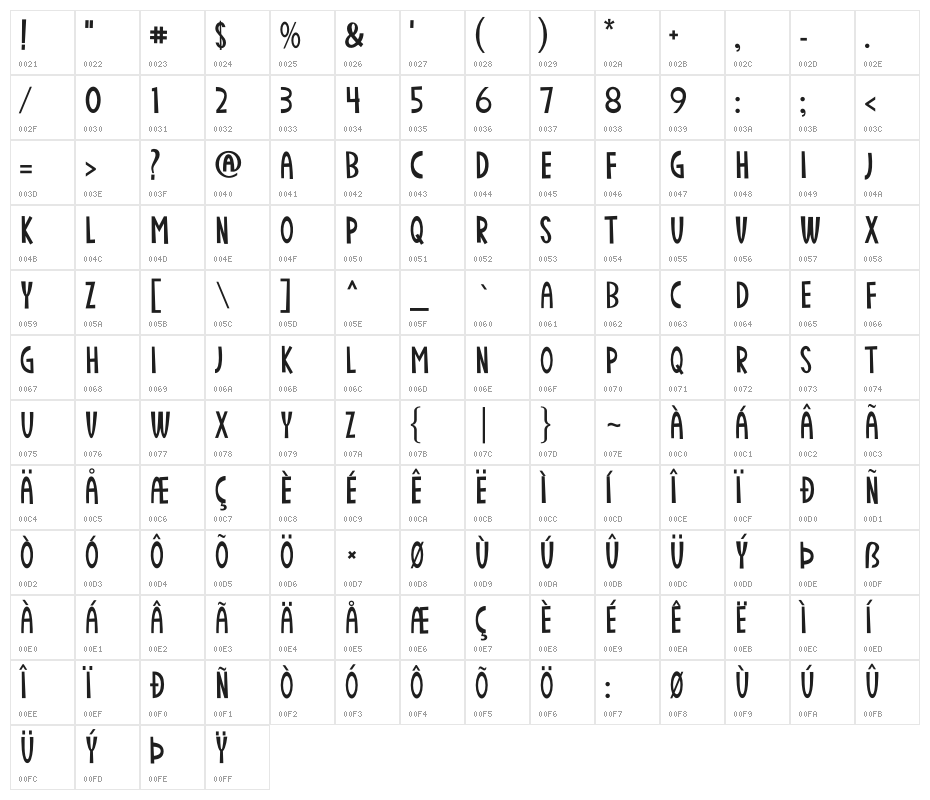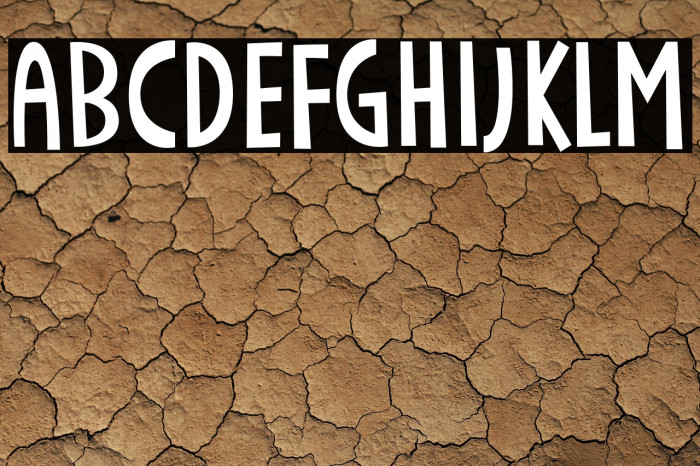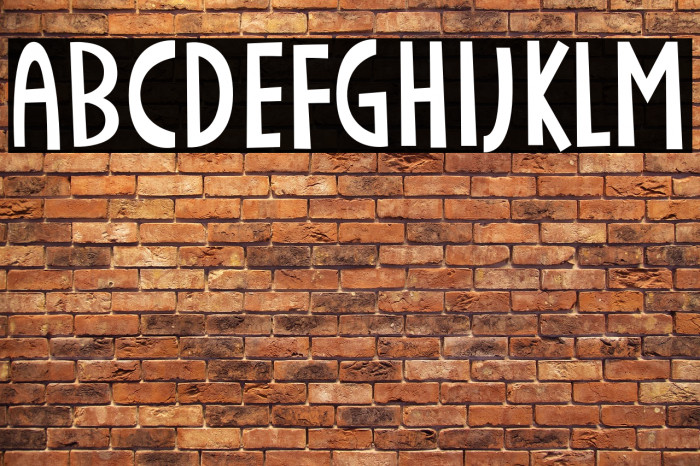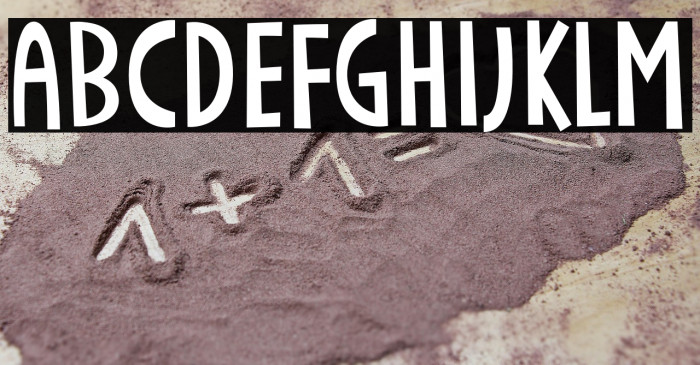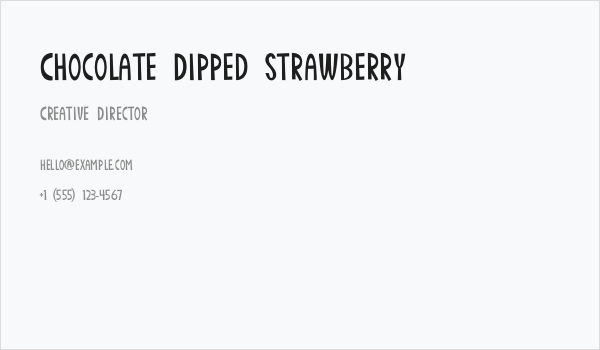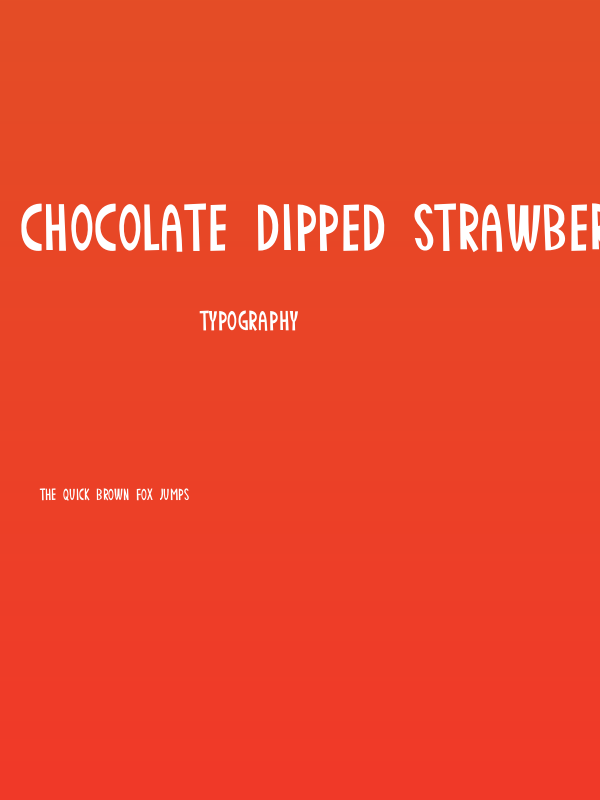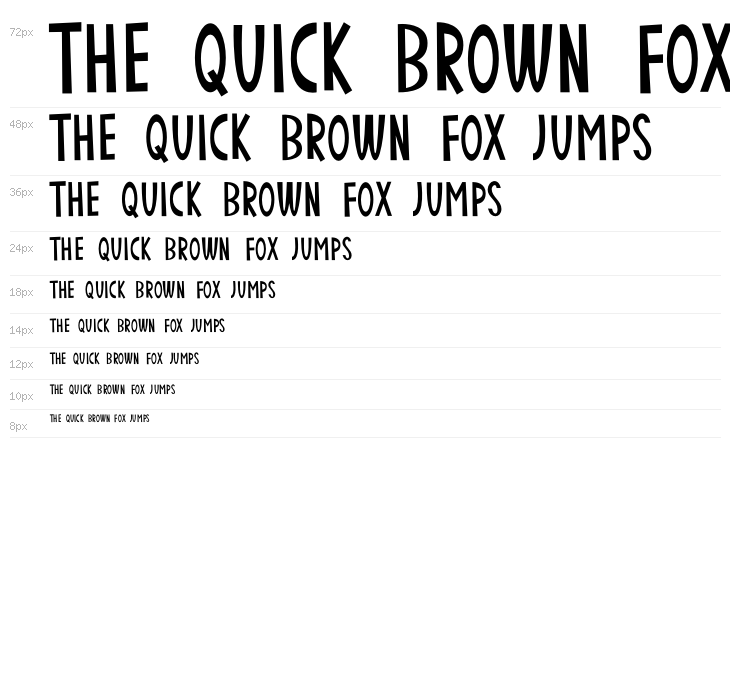
Chocolate Dipped Strawberry Font
Chocolate Dipped Strawberry Description
This font features a playful and whimsical style with a hand-drawn appearance. The characters are bold and slightly irregular, giving it a unique and informal look. The uppercase letters are tall and narrow, while the lowercase letters maintain a consistent height, creating a cohesive yet dynamic feel. The numbers and special characters are designed to match the playful aesthetic, making them suitable for creative and fun projects. The overall design is approachable and friendly, perfect for adding a touch of personality to any text.
| Proposed Projects | Ideal for children's books, greeting cards, playful branding, and creative posters. |